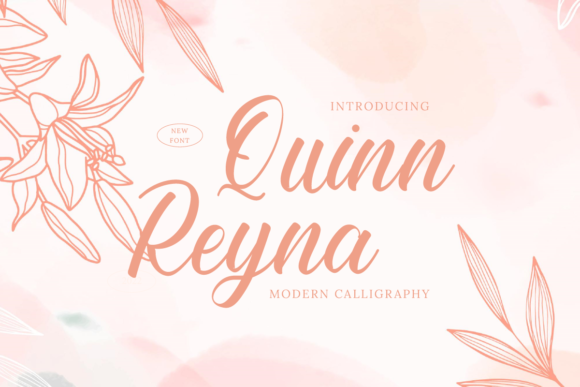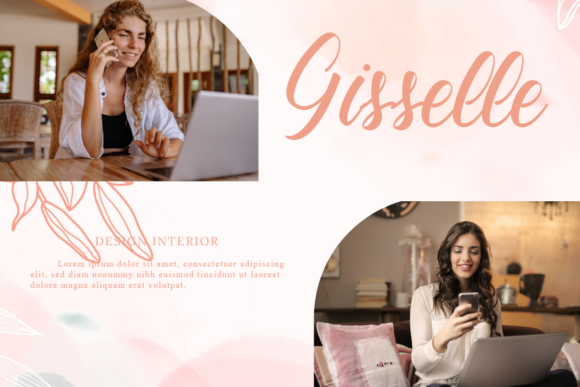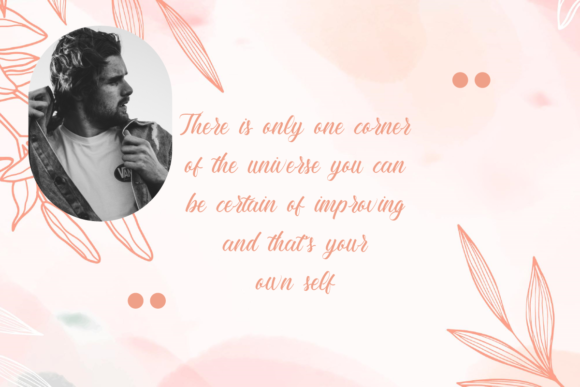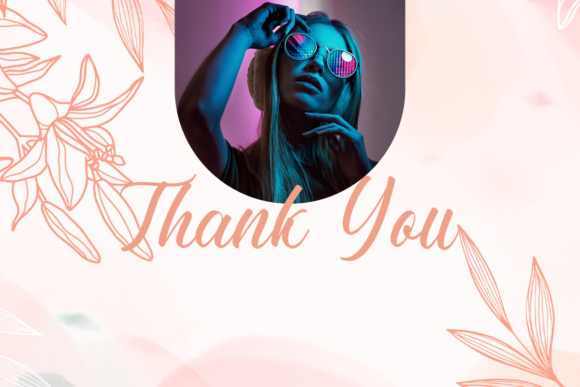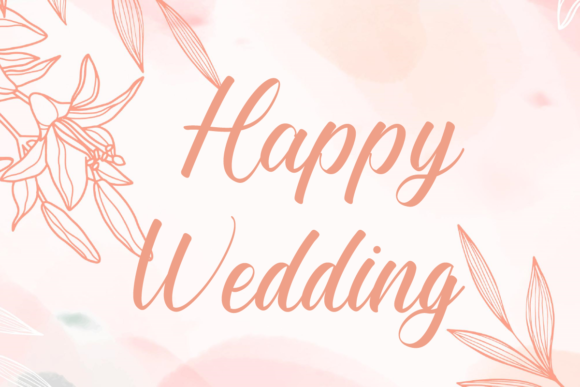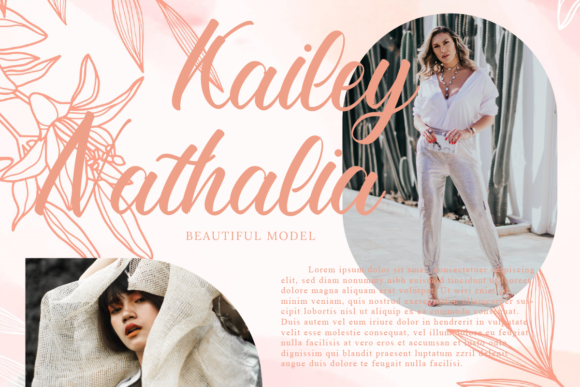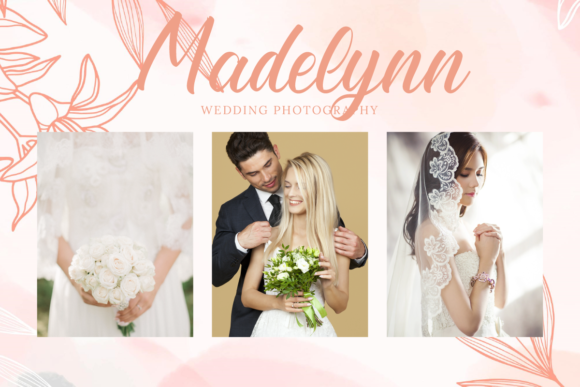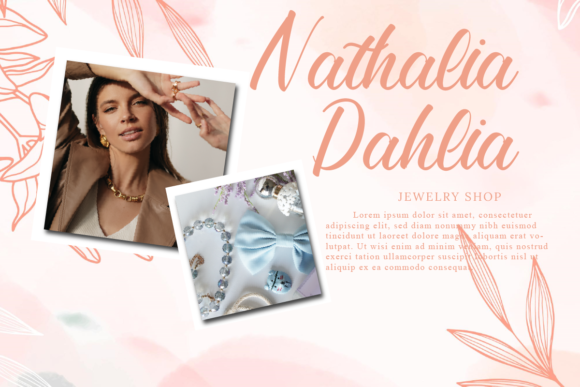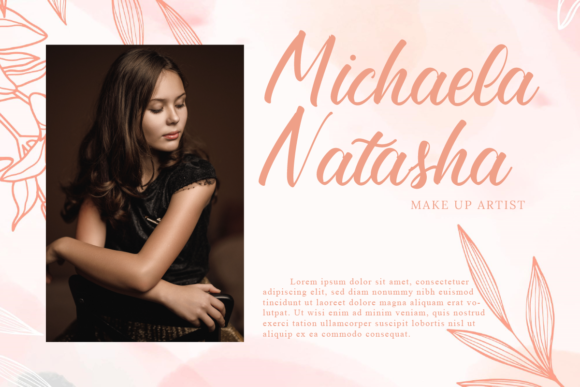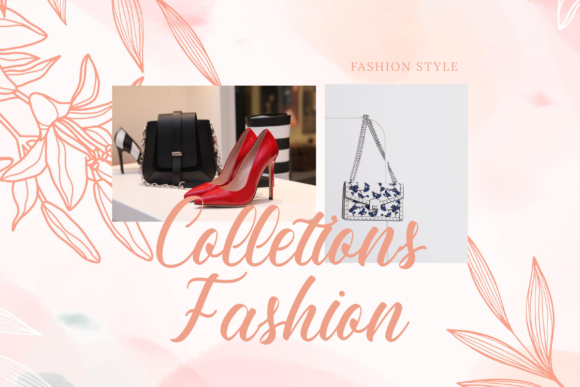
Quinn Reyna Font
About Quinn Reyna Font
Quinn Reyna is a lovely script font featuring charming, playful characters that seem to dance along the baseline. Add this font to your most creative ideas, and notice how it makes them stand out!